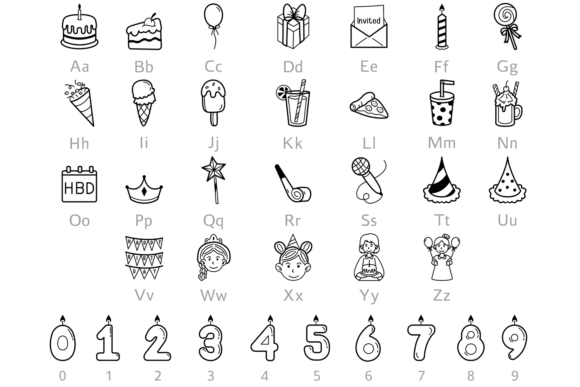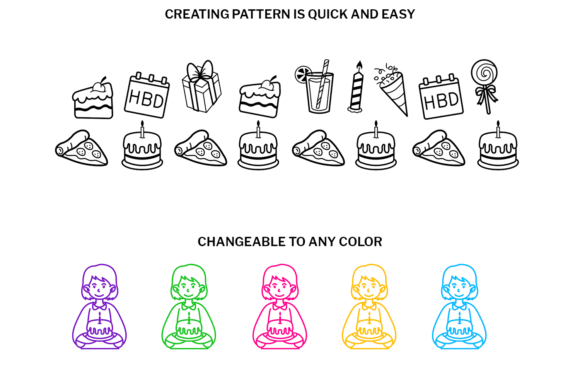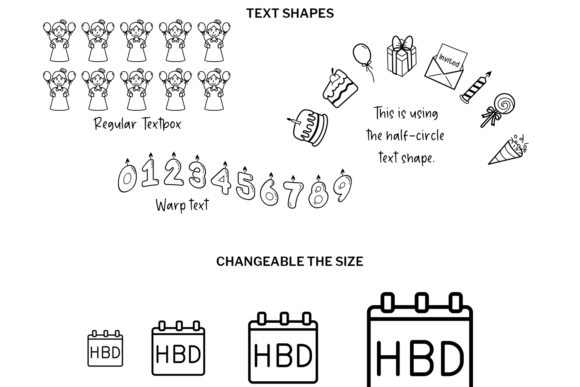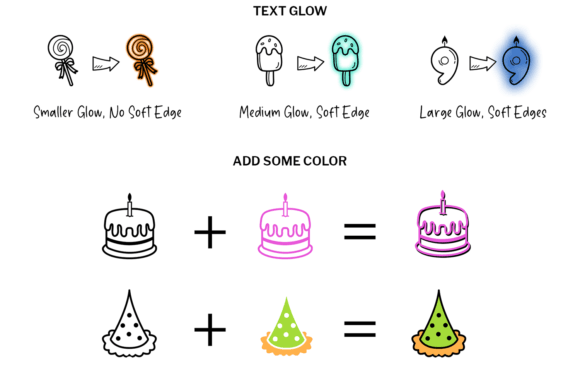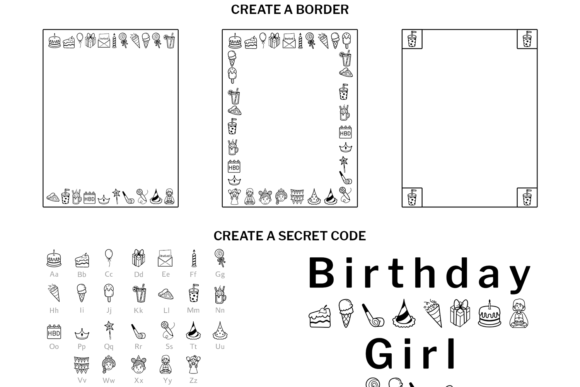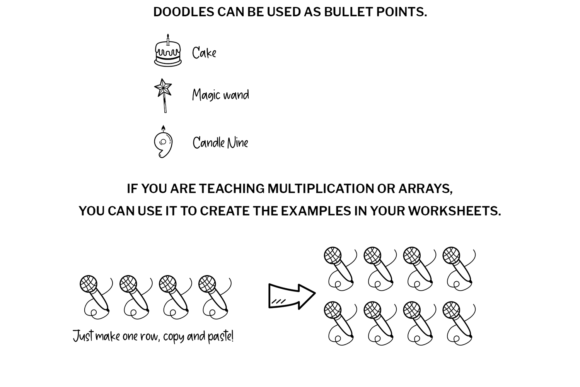
Introduction to Birthday Girl Doodle Font
Birthday Girl Doodle is a fun and cute dingbats font.
Its versatility makes it great for a Birthday party, planners, and diaries, Great for crafters and graphic artists alike Compatible with tools such as Photoshop or Illustrator.
Key Features of Birthday Girl Doodle Font
Why Choose Birthday Girl Doodle Font?